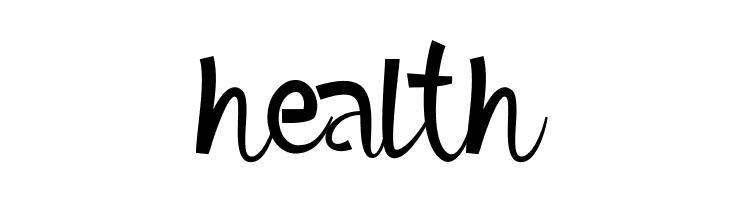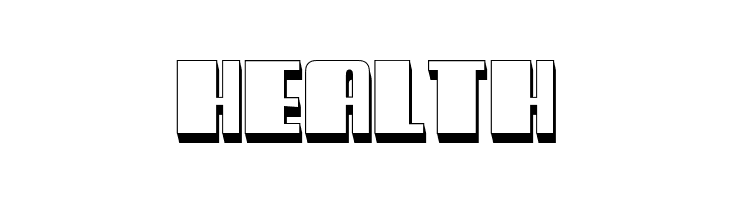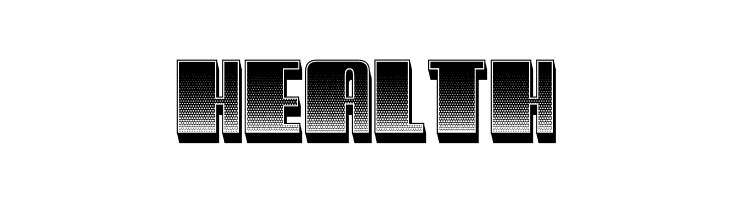
A bold, authoritative font with strong, thick strokes and sharp edges.
A bold serif font with strong strokes and a modern twist.
A bold serif font with strong vertical lines and pronounced serifs.
A bold, cursive font with a retro, vintage style.
A bold, blocky font with a modern yet retro feel, perfect for impactful designs.
A bold, modern font with a vintage touch, featuring thick strokes and a slightly condensed structure.
A dynamic and expressive script font with fluid, cursive letterforms.
A bold, flowing script font with a dynamic, handwritten style.
A bold, brush-style font with dynamic strokes and high contrast.
Bold, handwritten script font with a playful style.
A bold, expressive handwritten font with playful curves and thick strokes.
A bold and playful font with exaggerated curves and a whimsical style.
Playful, bold rounded font with a bubbly, informal style.
A bold, playful handwritten font with energetic strokes and a lively appearance.
A playful, hand-drawn font with tall, narrow characters and a modern feel.
An elegant, flowing script font with a sophisticated cursive style.
A playful, casual handwritten font with smooth, flowing lines.
A dynamic, handwritten font with fluid, elongated strokes and a casual elegance.
A bold, playful font with thick, rounded strokes and a cartoonish style.
A dynamic handwritten font with fluid, cursive strokes and a personal touch.
A dynamic, italicized script font with a fluid, handwritten style.
A bold, rugged font with thick strokes and a hand-crafted appearance.
A bold, brush-style font with dynamic, handcrafted strokes.
A bold, 3D geometric font with a dotted texture and shadow effect.
Handwritten cursive script font.
A lively handwritten font with fluid, dynamic strokes and a playful, informal style.
A bold, playful font with a bubbly, cartoon-like appearance.
A bold, expressive script font with fluid, dynamic strokes.
A bold, brush-style font with dynamic, hand-painted strokes.
A bold, brush-style font with a dynamic and energetic appearance.
A bold, rugged font with thick, angular letters and a strong visual impact.
A lively, handwritten font with fluid strokes and a playful, modern style.
A dynamic handwritten font with fluid strokes and a rustic texture.
A lively and dynamic handwritten font with fluid, flowing letterforms.
A bold, modern font with thick, uniform strokes for impactful designs.